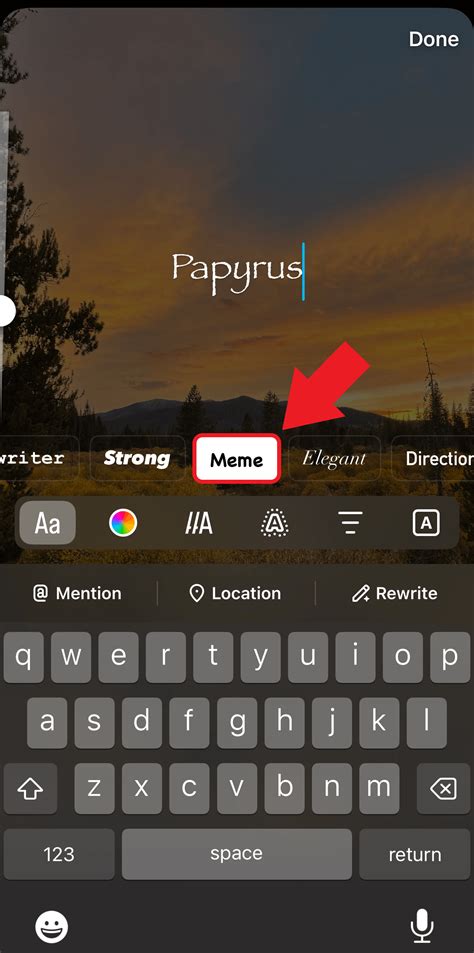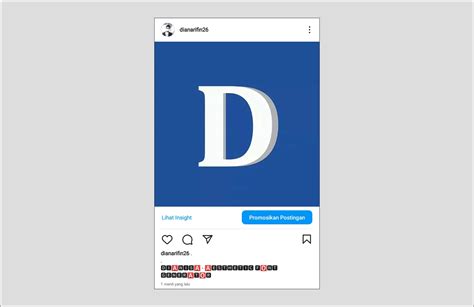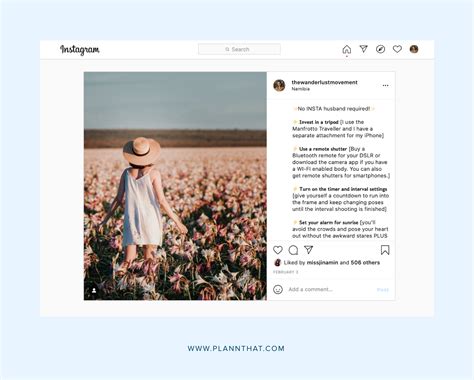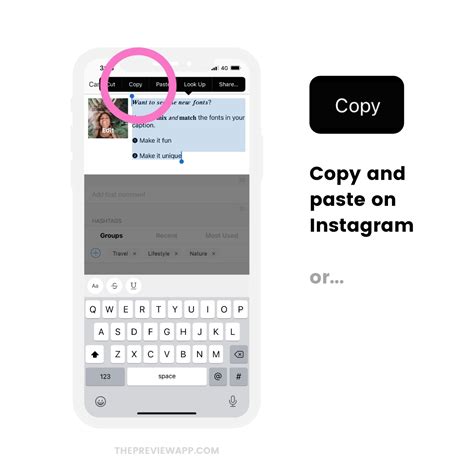
Finding the perfective Font For Instagram Caption is oft the miss piece in a successful societal medium strategy. While the default aesthetic of Instagram is clean and minimalist, there are moments when your brand or personal profile demands a more originative trace to discontinue the gyre. Typography is an unspoken lyric; it conveys tone, emotion, and brand personality before the exploiter still read your real words. By integrate unequaled fibre mode, you can elevate a uncomplicated photo dump into a highly engaging piece of content that tone curated, designed, and visually salient.
Why Typography Matters on Instagram
Instagram is a visual-first program, and while images carry the heavy lifting, your textbook creates the circumstance. When you use a unique Font For Instagram Caption, you are signaling to your following that your content is artisanal and well-thought-out. It creates a hierarchy of visual information, help to tell crucial proclamation, punchy quote, or interactional enquiry from the balance of your feed.
The Psychological Impact of Font Choice
Different typefaces trigger specific psychological reply. A flowing, monospaced face can imply a technological or modern vibe, while a delicate, script-style font conveys elegance and luxury. By carefully selecting your schoolbook mode, you can:
- Enhance Brand Identity: Consistent use of specific styles creates a recognizable digital footprint.
- Increase Appointment: Visually distinct text course draws the eye, leading to high interaction rate.
- Improve Legibility: Strategic use of boldface or stylized text helps interrupt up long, dense subtitle.
Effective Ways to Style Your Instagram Captions
To enforce these changes, most users bank on unicode character changeover tool. These tool interpret standard keyboard quality into different symbols that look like stylized text. However, there are good practices to keep in nous to ensure your Font For Instagram Caption remains effective and accessible.
| Manner | Recommended Usage |
| Seriph | Professional, editorial, or luxury-focused message. |
| Monospace | Tech reviews, minimalist esthetics, or code-themed place. |
| Hand | Personal blog, citation, and event invitation. |
| Bold/Sans | Call-to-action (CTA) statements and headline focus. |
💡 Note: Overusing decorative baptistery can sometimes hinder readability for users with optical impairments. Always ensure your primary content is clear and reserve stylise text for emphasis.
Best Practices for Instagram Typography
Before you dive headfirst into change your text style, consider these strategic backsheesh:
- Prioritize Accessibility: Some blind readers fight to interpret unicode fibre. Use ornamental case slenderly, mainly for header or little, punchy subtitle.
- Maintain Eubstance: Stick to one or two complementary styles to secure your profile provender remain cohesive rather than clutter.
- Don't Overdo It: The principal body of your legend should e'er be in the standard Instagram font for maximum legibility. Use especial case to foreground specific phrases or taglines.
- Check Mobile Aspect: What appear full on a background blind might be illegible on a small-scale mobile twist. Prove your chosen fashion on different blind sizing before finalize your post.
Subdue the art of typography on social media grant you to break free from the standard aesthetic limitation of the program. By choosing a manner that resonates with your brand, you ensure your voice is heard and your message is visually compelling. Remember that the finish of employ a unequalled font is to trace tending to your ideas, not to distract from them. As you experiment with different way, direction on limpidity and make cohesion to build a stronger connection with your audience. Finally, the correct esthetical option assist transmute your profile into a originative space that ponder your unique vision through every utterly styled word in your Instagram subtitle.